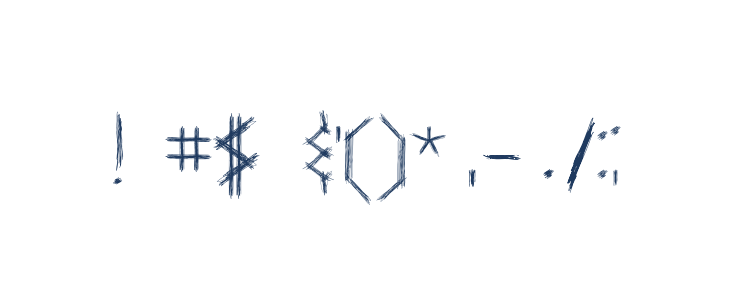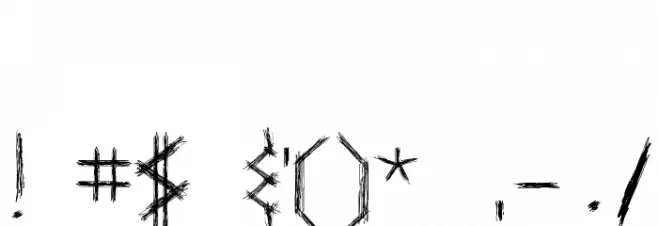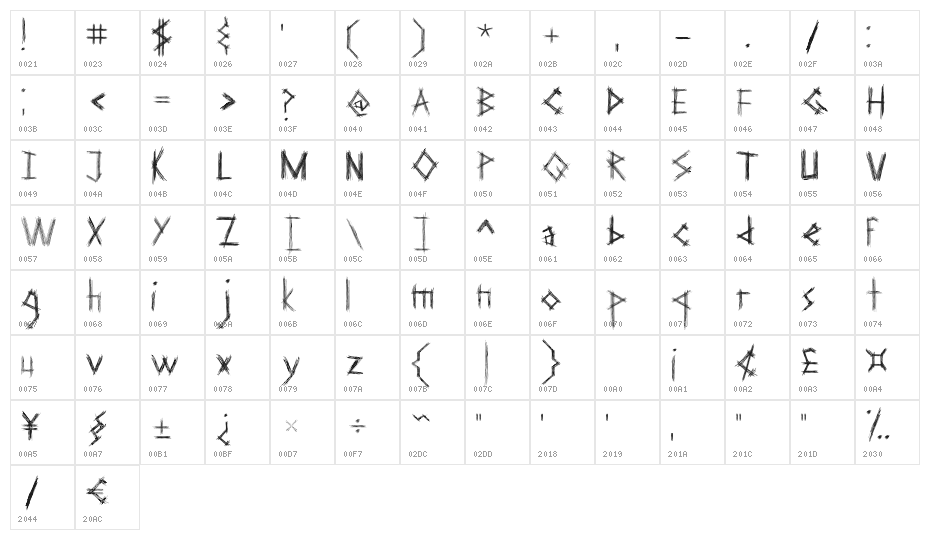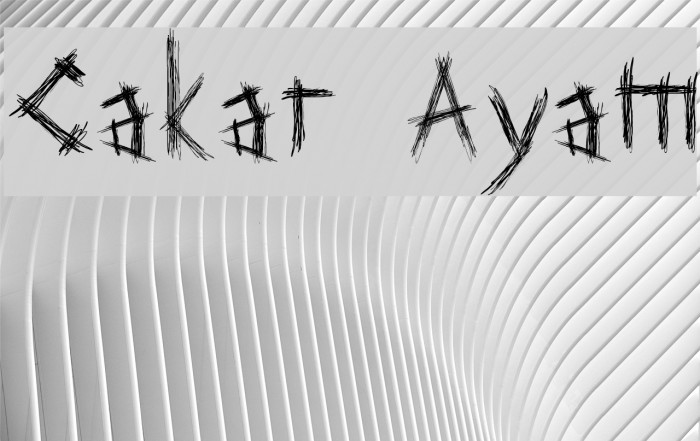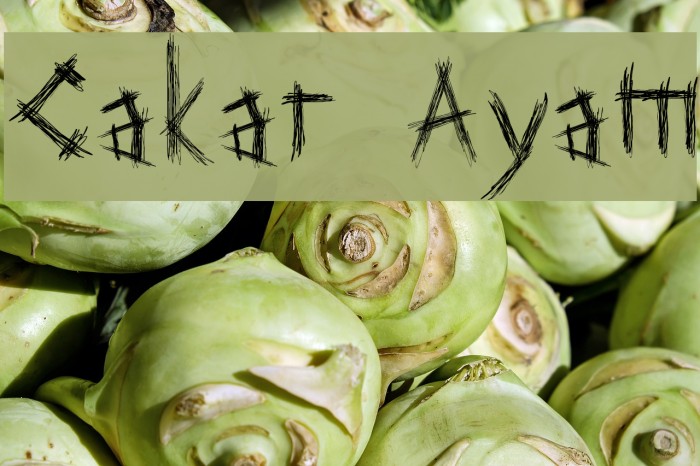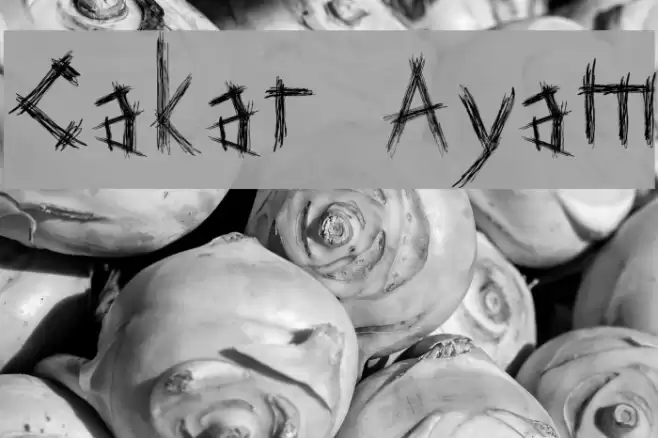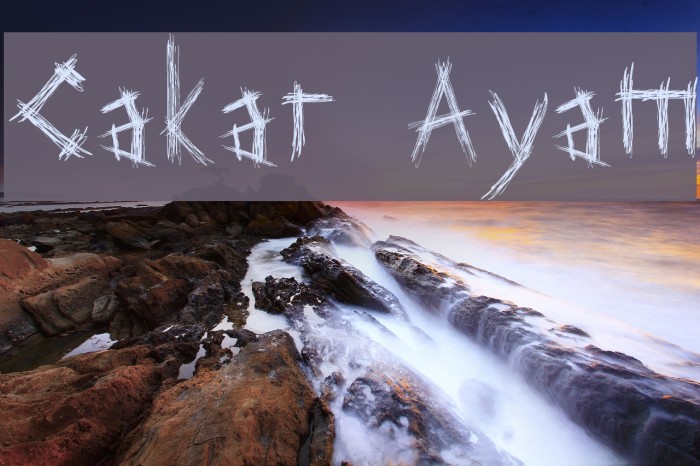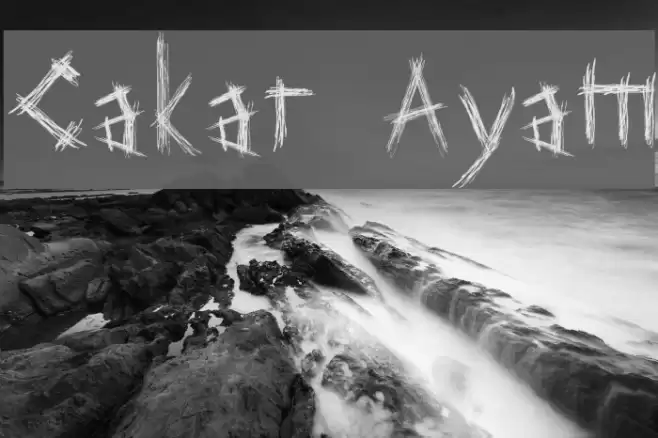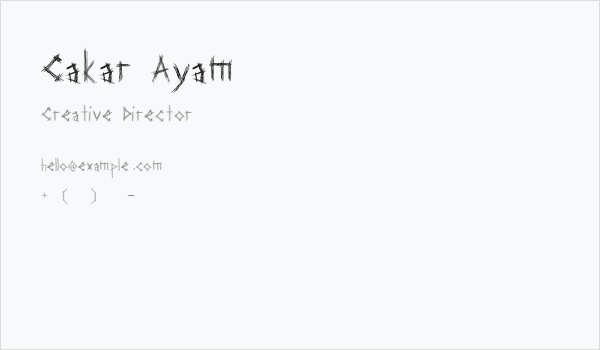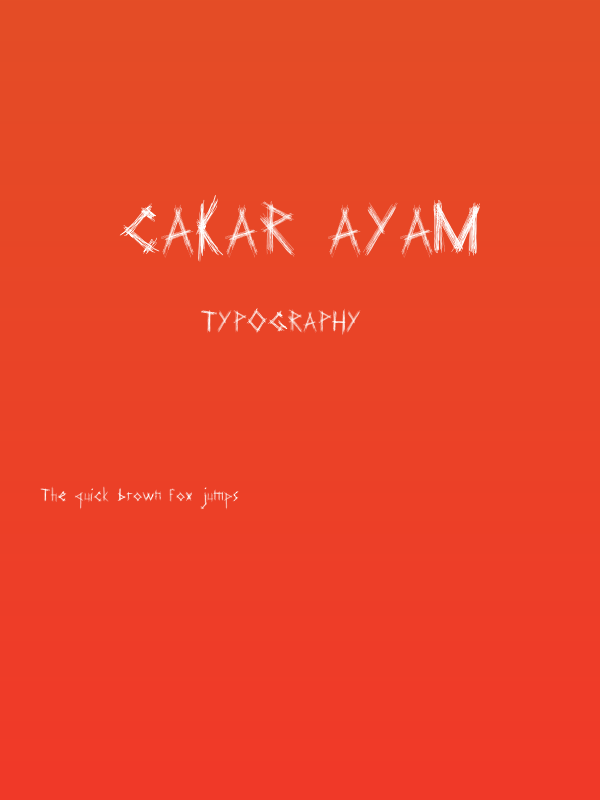
Cakar Ayam Font
Cakar Ayam Description
This font features a highly distinctive and edgy design, characterized by its rough, sketch-like strokes that give it a hand-drawn appearance. The letters are constructed with overlapping lines, creating a sense of movement and energy. Each character appears as if it has been scratched or etched, lending a raw and dynamic feel to the text. The uppercase and lowercase letters maintain a consistent style, with angular forms and sharp edges. The numerals and special characters follow the same aesthetic, ensuring uniformity across the font. This font's unique style makes it stand out, perfect for projects that require a bold and unconventional look.
| Overall Style | Modern, Edgy |
| Use Case | Headlines, Logos, Artistic designs |
| Proposed Projects | Ideal for album covers, posters, graffiti art, and edgy branding projects. |